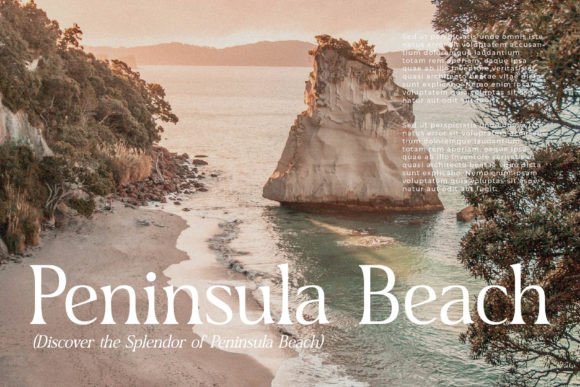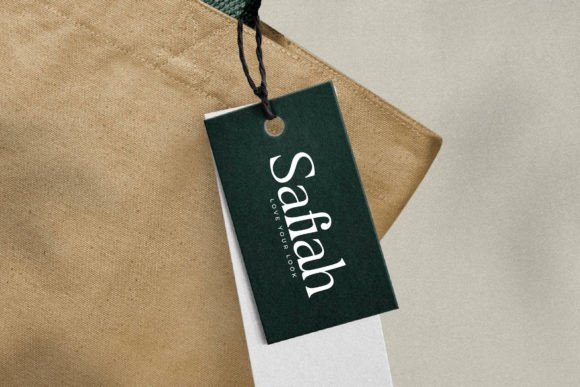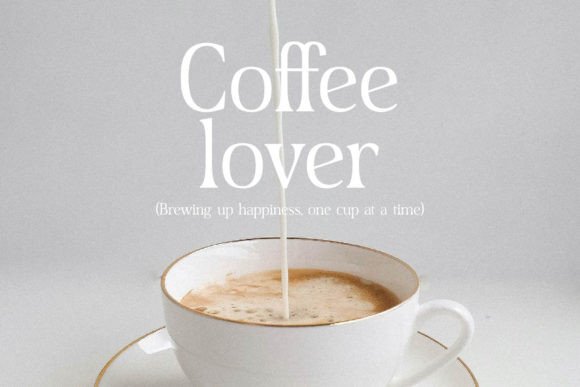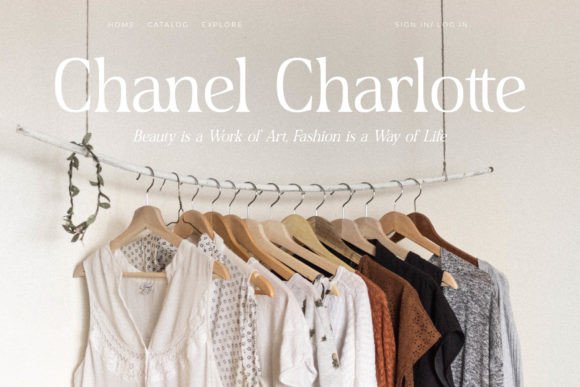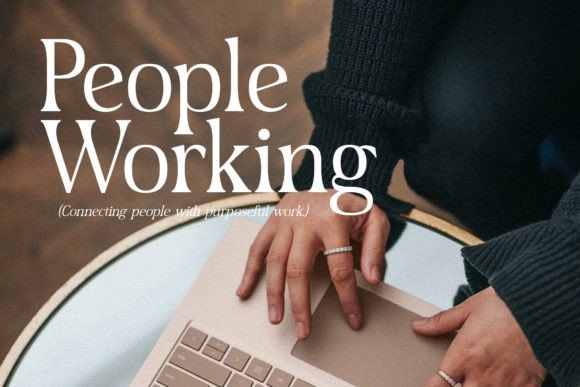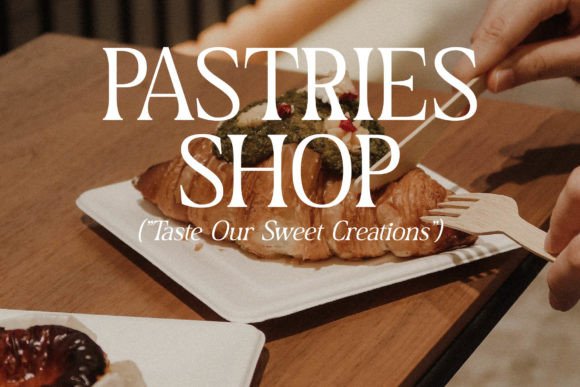
Dairing Font: A Timeless Serif Typeface for Elegant Designs
In the world of typography, a font can make or break a design. For designers and crafters seeking a typeface that exudes elegance and sophistication, look no further than Dairing Font. This serif modern and classic typeface boasts a unique style and modern look, making it perfect for a wide range of applications, from luxury logos to book titles, fashion brands, and more.
The Characteristics of Dairing Font
Dairing Font is a serif typeface that strikes the perfect balance between modernity and classic charm. Its unique style is characterized by clean lines, precise curves, and a sophisticated flair. The font’s modern look is achieved through its sleek and streamlined design, making it an excellent choice for designers seeking a contemporary aesthetic.
Perfect for Elegant and Luxury Designs
Dairing Font is specifically designed for elegant and luxury designs, making it an ideal choice for:
- Luxury Logos: Create a lasting impression with a logo that exudes sophistication and refinement.
- Book or Movie Title Design: Add a touch of elegance to your title design with a font that commands attention.
- Fashion Brands: Elevate your fashion brand with a typeface that embodies style and sophistication.
- Magazines: Give your magazine a professional and polished look with Dairing Font.
- Clothes: Use Dairing Font to create stunning clothing designs that showcase your brand’s style.
- Lettering: Add a touch of elegance to your lettering with a font that is both modern and classic.
- Quotes: Make your quotes stand out with a typeface that is both sophisticated and eye-catching.
Why Choose Dairing Font?
With so many typefaces available, why choose Dairing Font? Here are just a few reasons why designers and crafters are falling in love with this elegant serif font:
- Unique Style: Dairing Font boasts a unique style that sets it apart from other serif typefaces.
- Modern Look: The font’s modern look makes it perfect for designers seeking a contemporary aesthetic.
- Versatility: Dairing Font can be used for a wide range of applications, from luxury logos to book titles and more.
- Elegance: The font’s elegant design makes it perfect for creating sophisticated and refined designs.
Tips for Using Dairing Font
To get the most out of Dairing Font, here are a few tips to keep in mind:
- Pair with Other Fonts: Experiment with pairing Dairing Font with other fonts to create a unique and eye-catching design.
- Adjust Font Size: Adjust the font size to create visual hierarchy and emphasize important text.
- Play with Colors: Experiment with different colors to find the perfect combination that complements your design.
Dairing Font is a timeless serif typeface that is perfect for designers and crafters seeking a elegant and luxury aesthetic. With its unique style, modern look, and versatility, this font is sure to elevate your designs to the next level. Whether you’re creating a luxury logo, book title, or fashion brand, Dairing Font is the perfect choice.